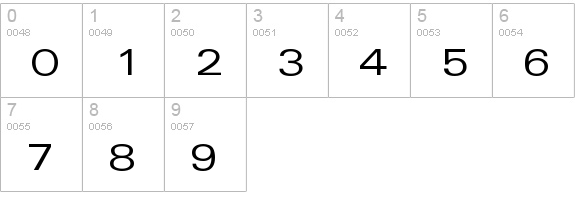
Unique Extended is a distinctive, extended-width variant in the Unique typeface family \xE2\x80\x94 well suited to design and typography projects.
Introducing Unique Extended, an exceptional font that combines elegance and versatility to bring your designs to new heights. This font is truly one-of-a-kind, with its elongated and distinct letterforms, making it perfect for adding a touch of sophistication to any project. With its unique and eye-catching style, Unique Extended is sure to captivate your audience and leave a lasting impression. Its extended characters give a modern twist to traditional typography, making it an excellent choice for branding, logos, headlines, and more. But what makes Unique Extended even more remarkable is that it is available for free! That's right, you can now download this incredible font at FontsMarket.com, without having to spend a single penny. This means that you can enjoy all the benefits of this outstanding font without breaking the bank. Whether you're a professional designer or a creative enthusiast, Unique Extended is a must-have in your font collection. Its versatility allows it to adapt to various design styles and themes, making it suitable for a wide range of projects. From sleek and minimalistic designs to bold and expressive creations, this font can do it all. Not only does Unique Extended offer exceptional visual appeal, but it also ensures legibility and readability, even at smaller sizes. This makes it perfect for use in body text, ensuring that your message is conveyed effectively and effortlessly. So why wait? Take advantage of this incredible opportunity to enhance your designs with Unique Extended. Download this free font today at FontsMarket.com and unlock a world of possibilities for your creative endeavors. Don't miss out on this unique and extraordinary font that will undoubtedly elevate your designs to new levels of excellence.